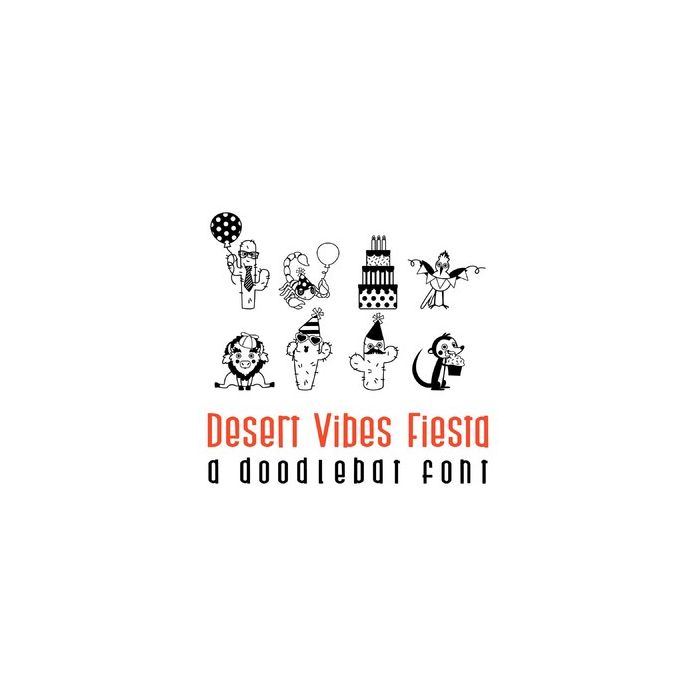
This adorable doodlebat font features 26 fun-loving desert cacti and animals ready to party. Perfect for cards, crafts, gifts, decor, birthdays, planner stickers, scrap book pages and more!